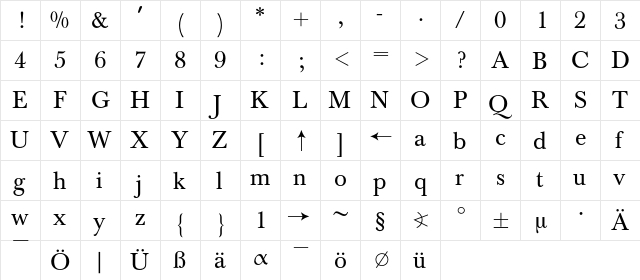
Baskerville Regular + Math Pi BQ Regular
Design Context for Baskerville Regular + Math Pi BQ Typeface
Baskerville Regular + Math Pi BQ offers clean, dependable letterforms without strong stylistic allegiance, making it a practical choice for designers who need flexibility.